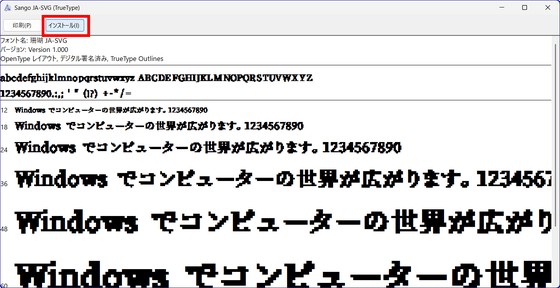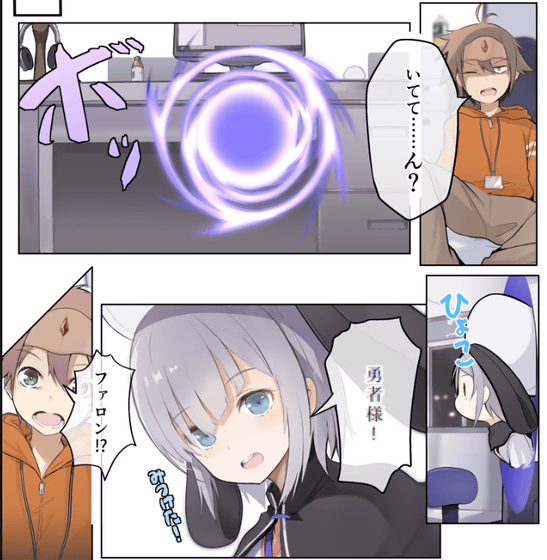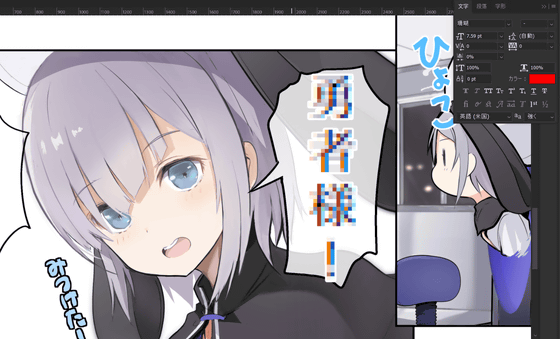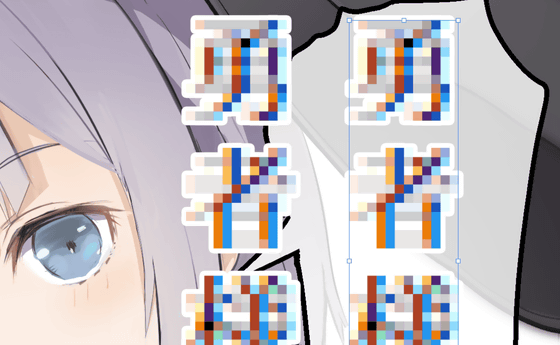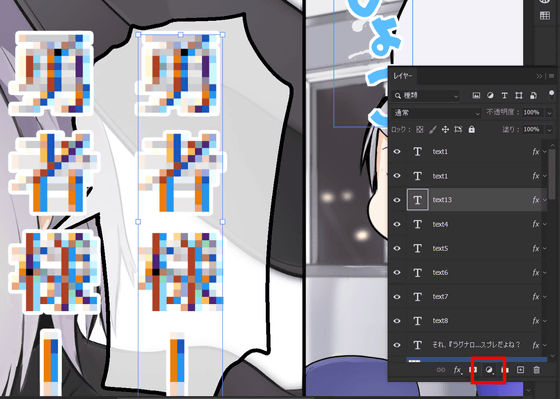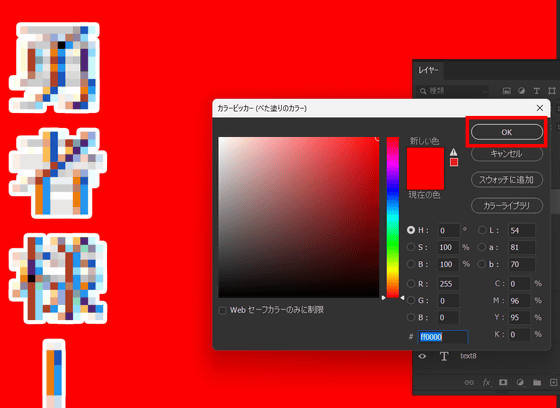
'Coral' is a free subpixel rendering style color font.
Let's try using the coral font. The following is a scene from the manga '
I changed the line 'Hero!' to a coral font. This just makes the letters look a little blurry, but doesn't make them very distinctive.
When you zoom in, you can see the pixelated characters and color blur that are characteristic of subpixel rendering. Coral fonts are great for displaying large text or as part of a digital-style design.
In addition, the two lines of text below written in coral font have been set in Photoshop as 'blue' on the left and 'red' on the right, but there was no change in the appearance of the text.
In Photoshop, there is a way to change the color of the coral font while maintaining its appearance: Select the text you want to change the color of and click on the Fill Layer menu in the Layers panel.
I was able to change the color of the coral font. This method does not allow for the color blurring that is specific to subpixel rendering, but it allows you to change the color while maintaining the shape of the mosaic-like font.